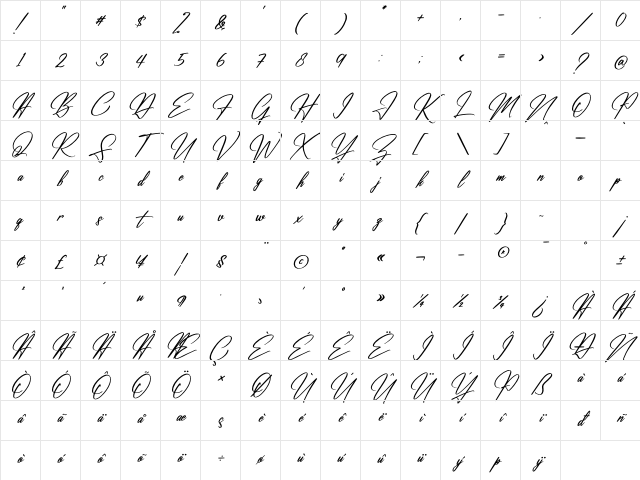
Renatta Signature Italic Free Font
Renatta Signature Italic
Foundry: Perspectype Studio
Designer: Perspectype Studio
Design Context for Renatta Signature
Renatta Signature is a composed and adaptable typeface that performs quietly and consistently across a wide range of design contexts. The slanted form adds forward momentum and visual energy.
Pro Tip: Use Renatta Signature for emphasis, pull quotes, and subheadings where its slanted energy can add rhythm to the layout.